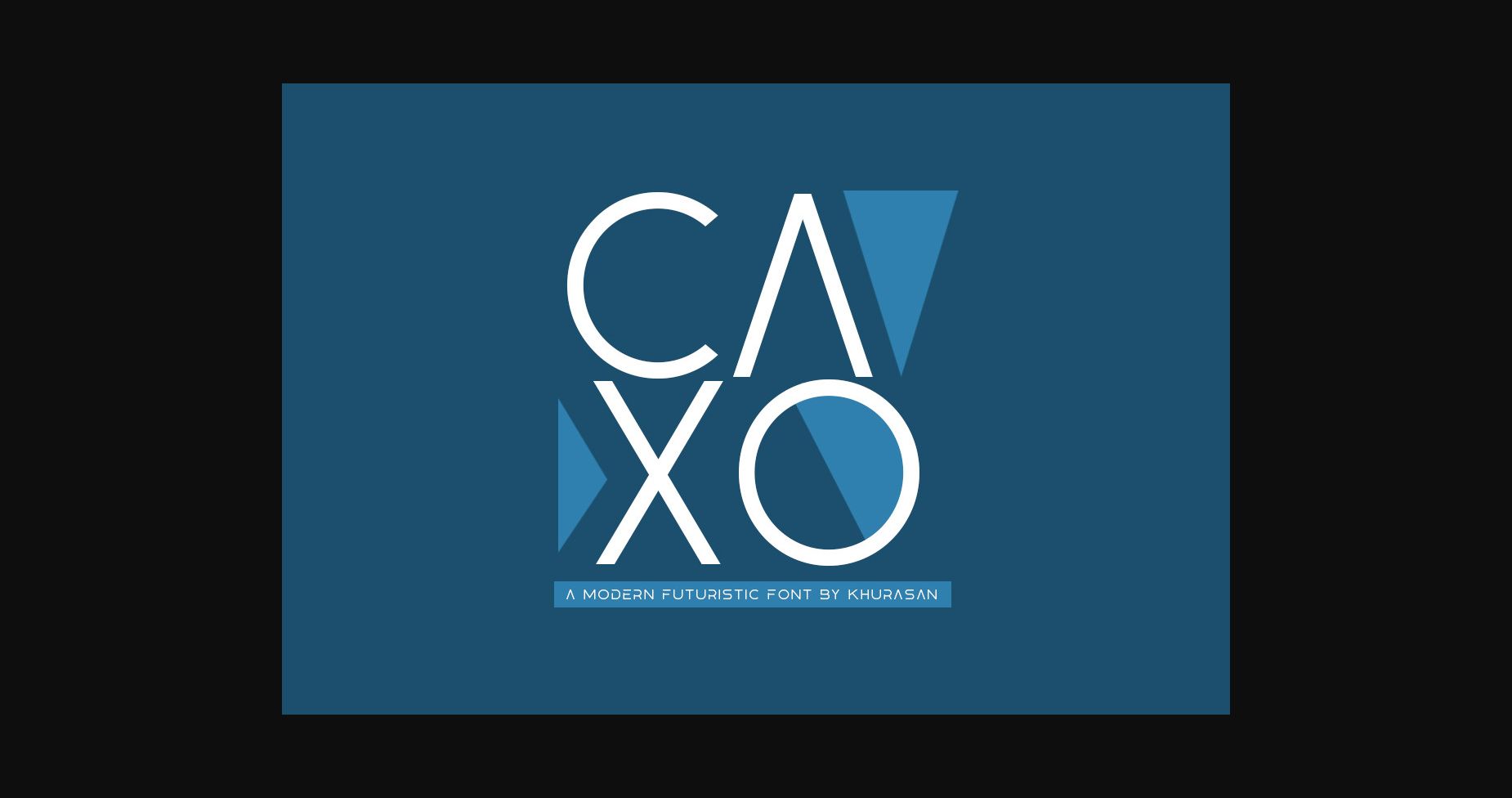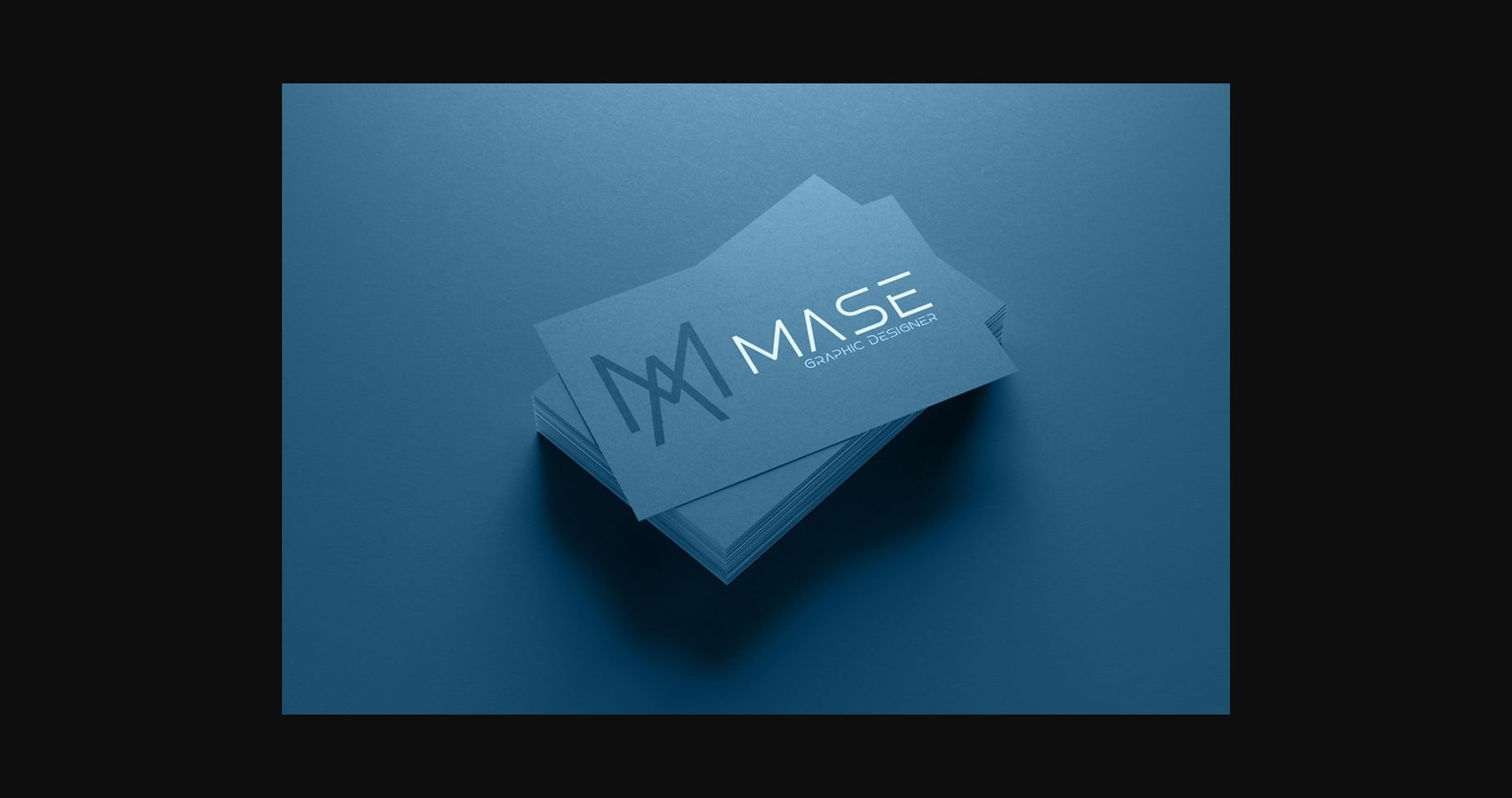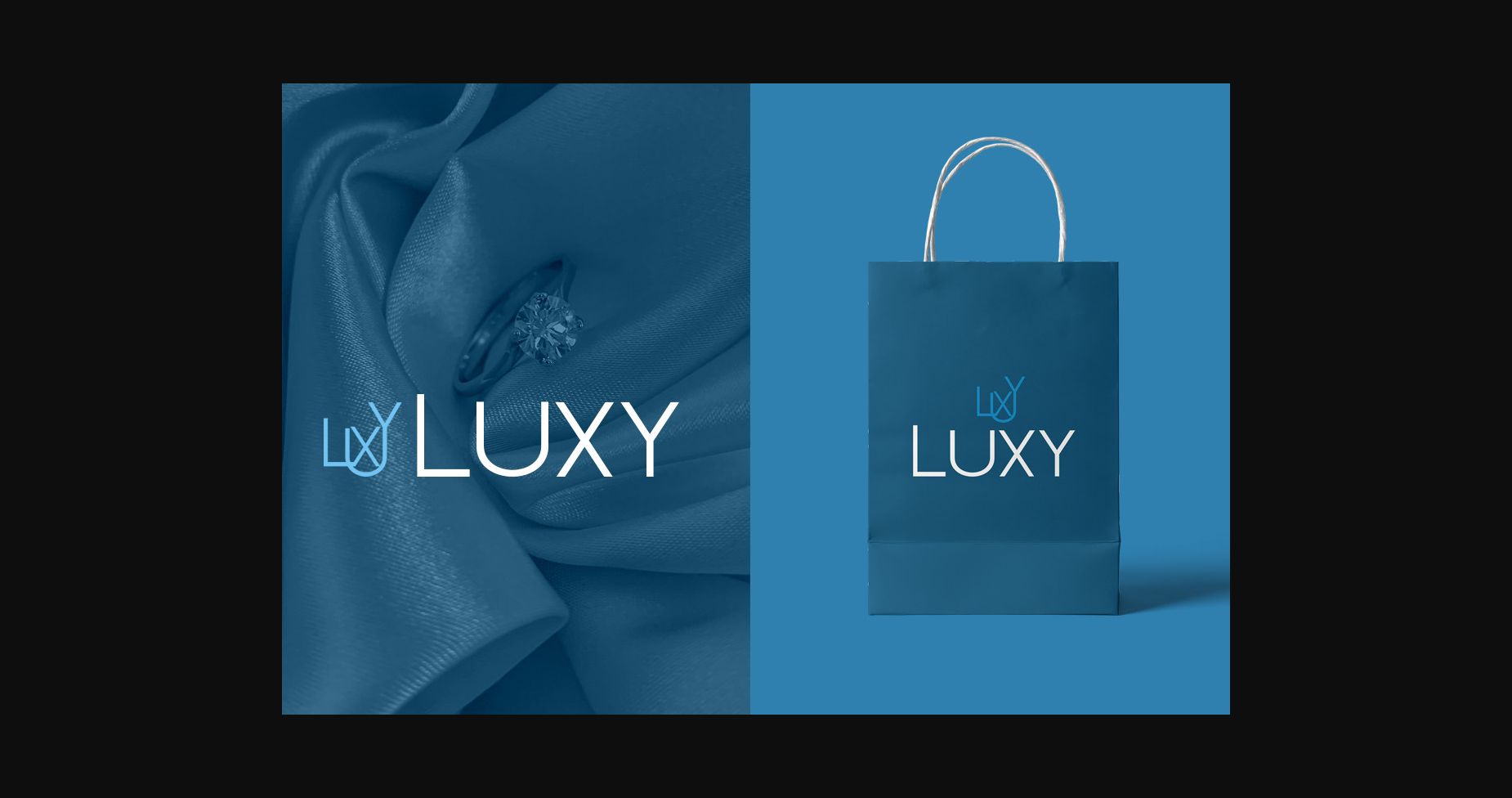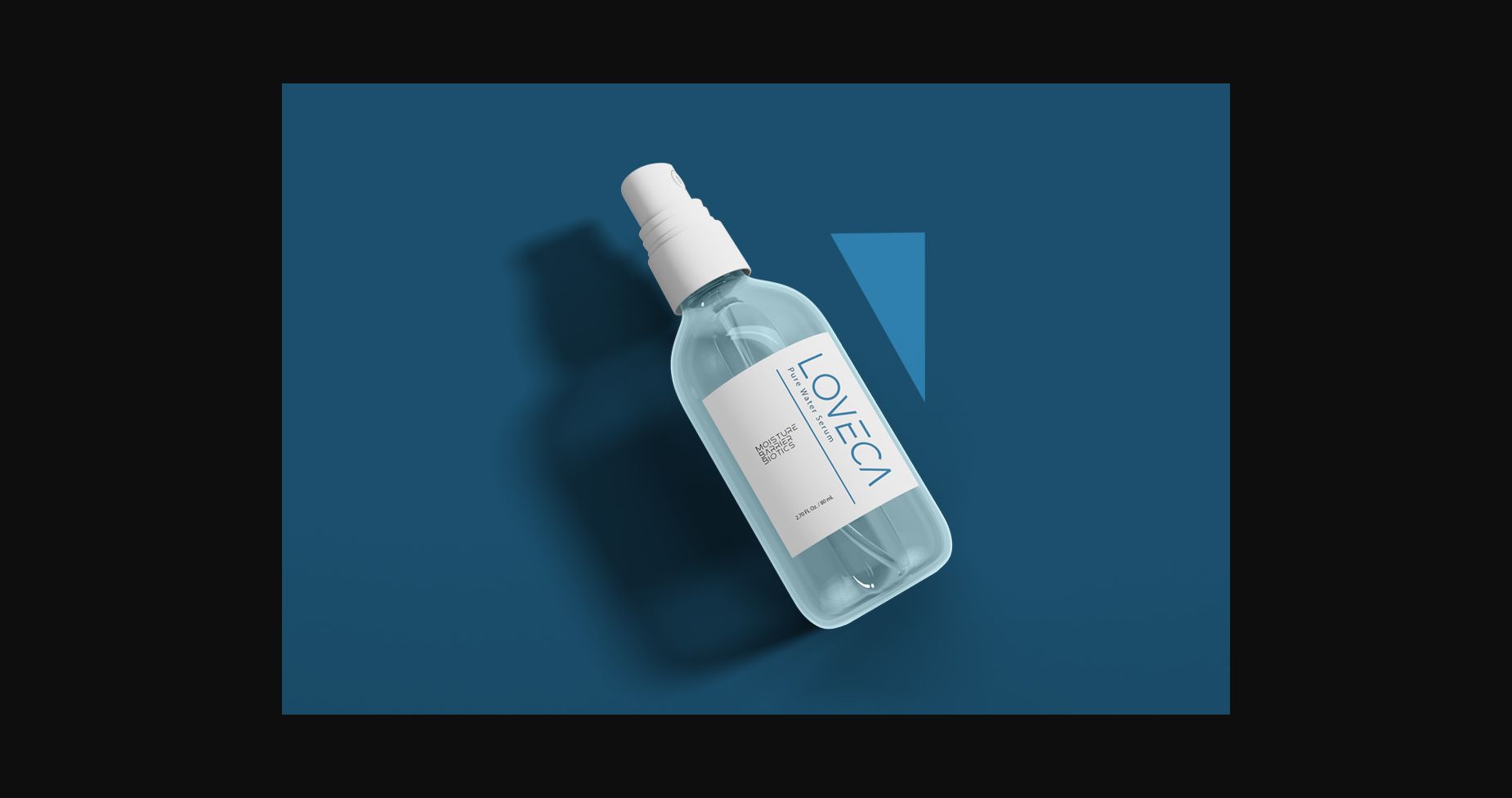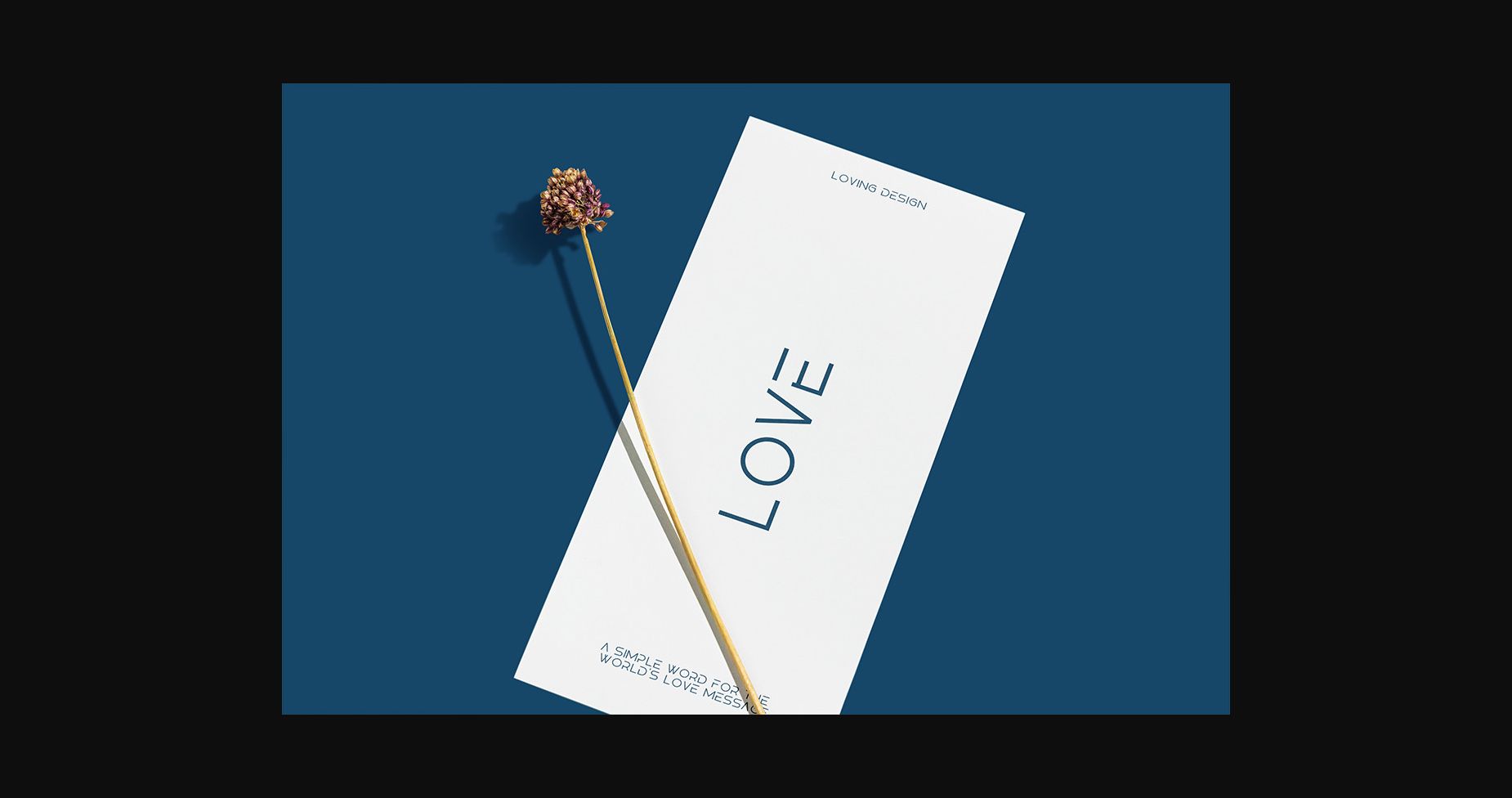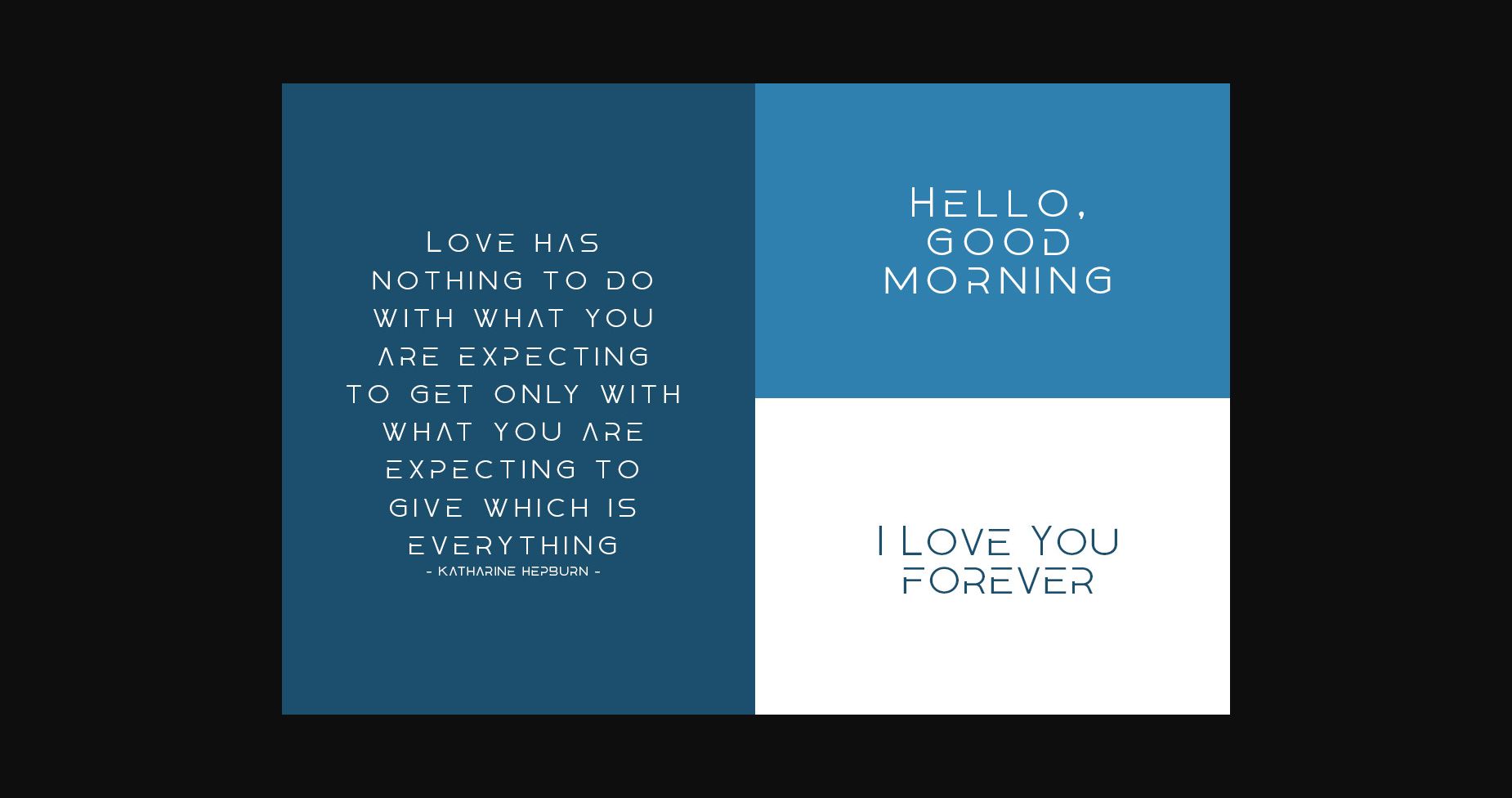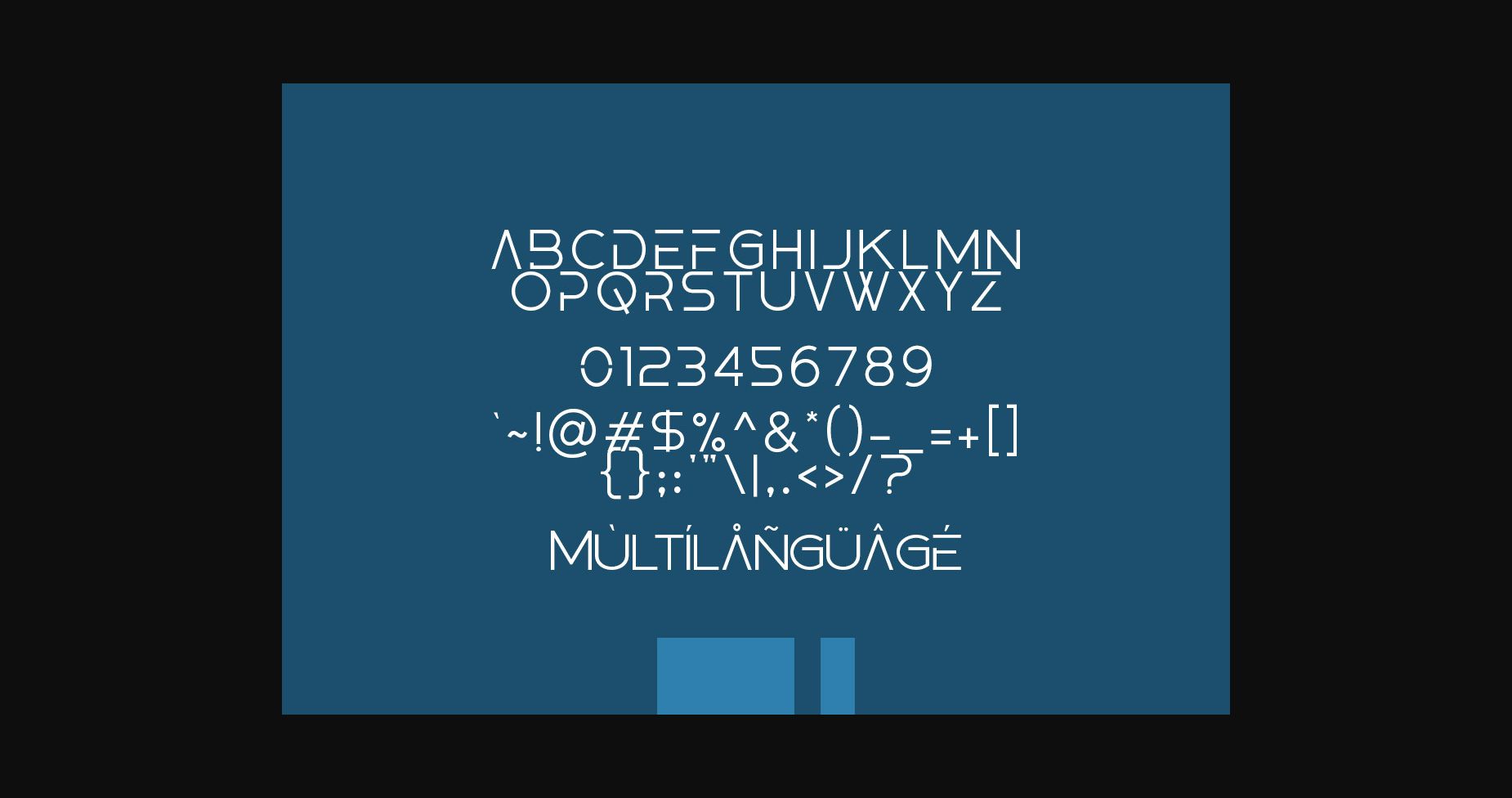
HomeSans Serif FontsCaxo Font Sans Serif Fonts Caxo Font FacebookXPinterestWhatsApp 1 of 9 ... Caxo Font Poster 2... Caxo Font Poster 3... Caxo Font Poster 4... Caxo Font Poster 5... Caxo Font Poster 6... Caxo Font Poster 7... Caxo Font Poster 8... Caxo Font Poster 9... About Caxo Font Introducing, Caxo font is a elegant sans serif typeface for your great project. Caxo font suitable for logo, branding, greeting card, poster and any design that you create. DOWNLOAD NOW People also explored Bielsa Signature Font Web Spider Frame Flower Font Luxuryn Font Hollyn Font Angelove Font Besthoven Font Transyl Font Autines Tailorbird Font 372 0 TagsCaxoCaxo Font Previous articleThelorin FontNext articleMasone Font LEAVE A REPLY Cancel reply Comment: Please enter your comment! Name:* Please enter your name here Email:* You have entered an incorrect email address! Please enter your email address here Website: Save my name, email, and website in this browser for the next time I comment. Personal Use Free Goodline Font Personal Use Free Read more about this font Love Story Personal Use Free Read more about this font Gupis Personal Use Free Read more about this font Creativo Personal Use Free Read more about this font BLOG Using Fonts in Digital Marketing: Tips to Strengthen Your Brand Identity In the realm of digital marketing, every visual element plays a crucial role in shaping a brand's identity, and fonts are no exception. The... To increase your work productivity, choose the most readable fonts. How to Install and Use Fonts on Windows, macOS, and Web Projects Free Fonts Risk: Why Free Fonts Can Be Dangerous for Designers